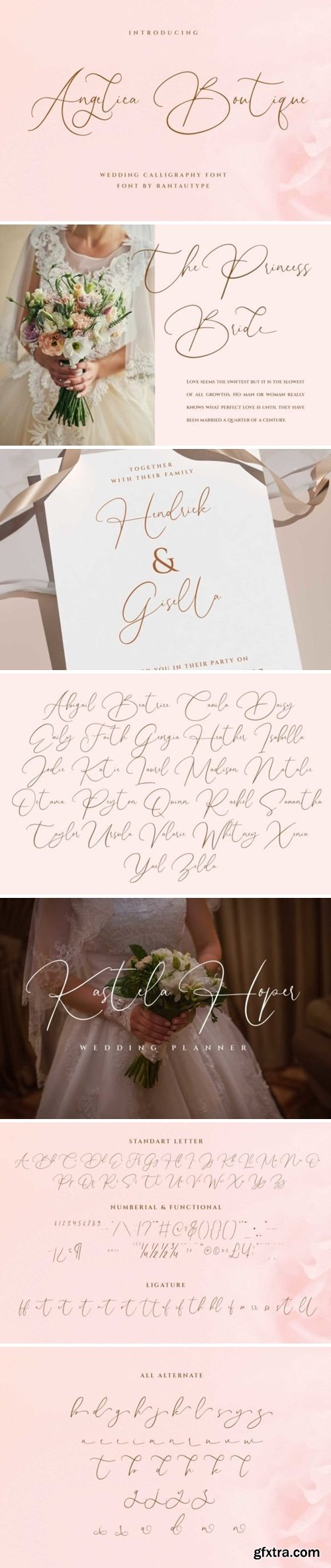
CM - Angelica Boutique- Calligraphy Font 16520863
Hi Ladies and Gentleman ! Proudly present wedding calligprahy font Angelica Boutique. This font is sophisticated, handwritten, girly, catchyand elegant look. We keep this font readable and easy to use. Angelica Boutique is the great choice for watermark on photography, website, branding, quotes, album cover, business card and many other design project. Angelica Boutique here to make your work to high level!!!